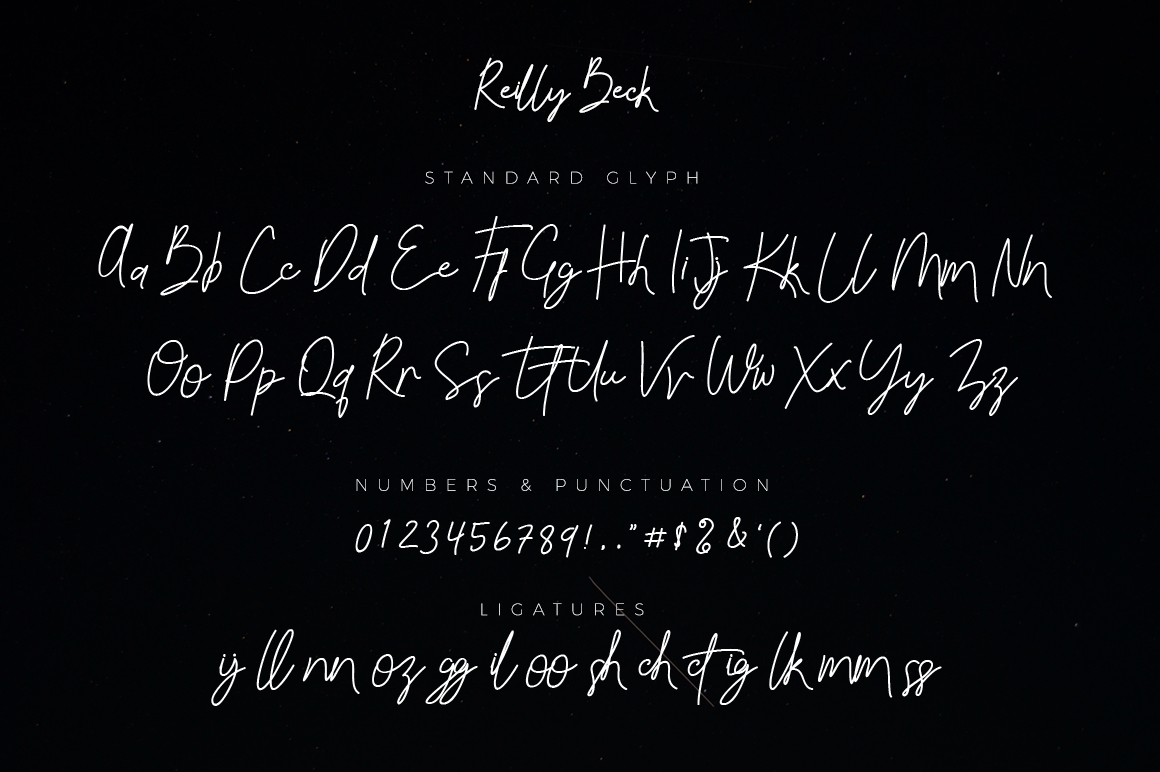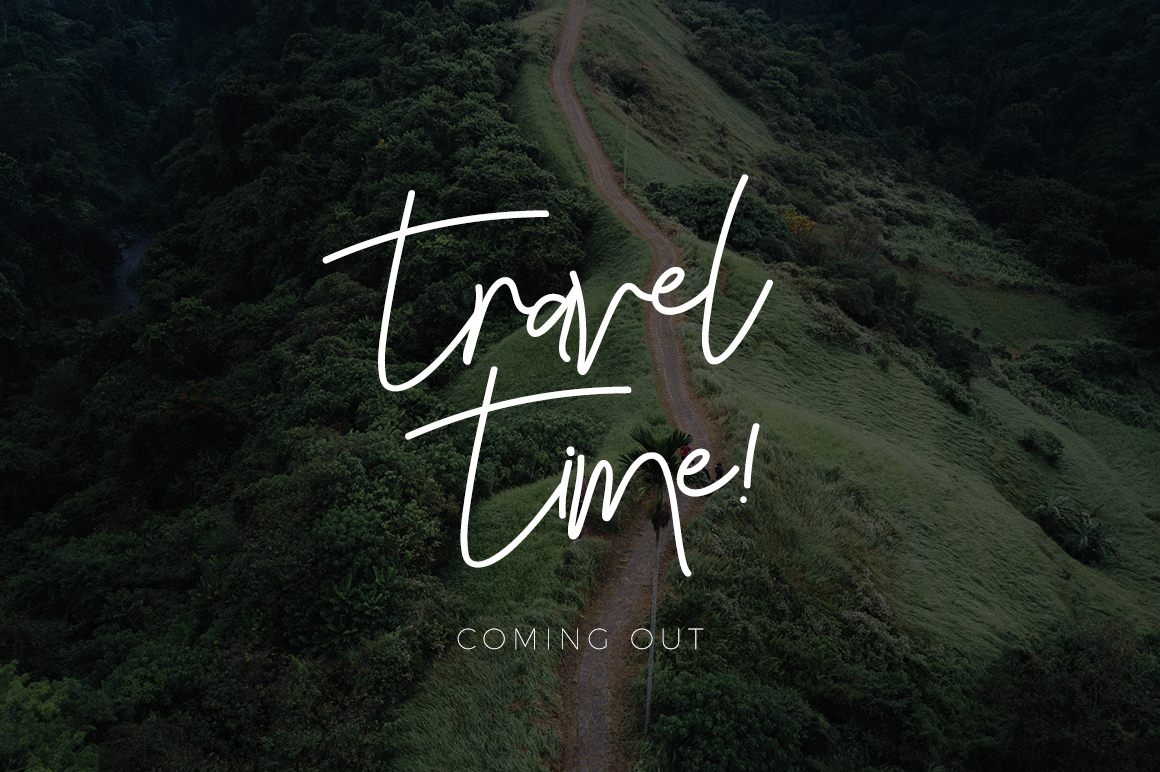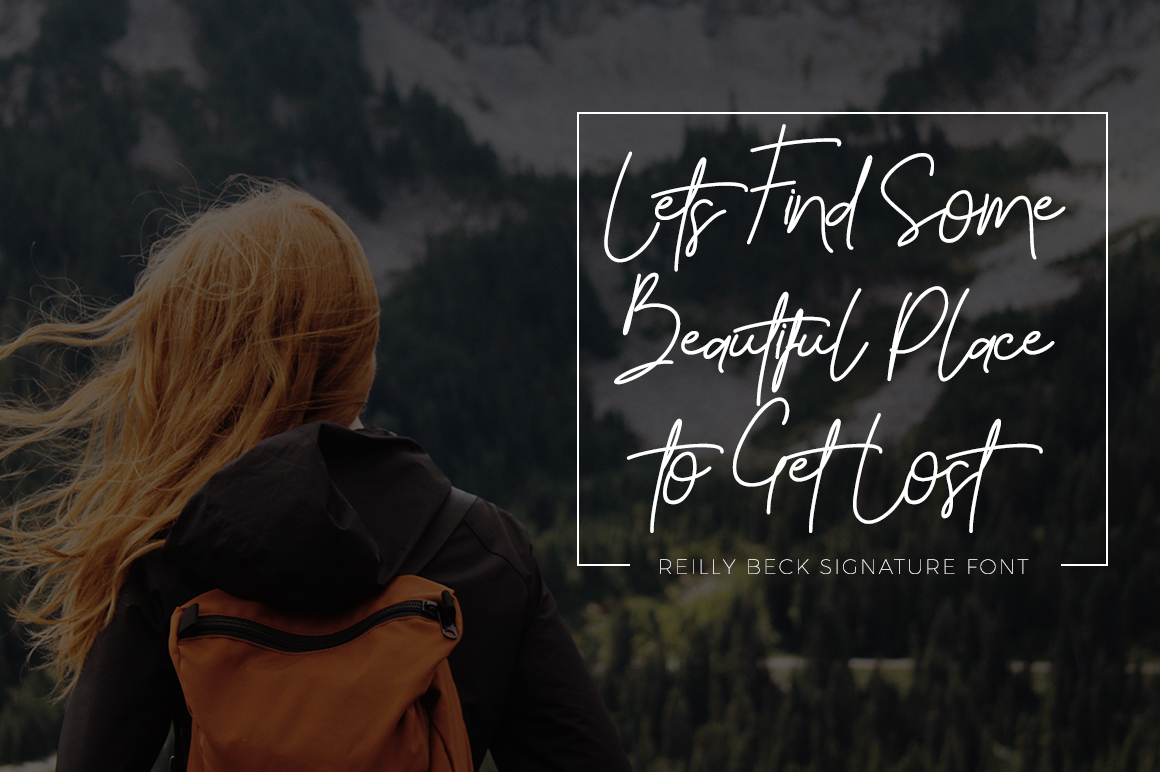
Reilly Beck Free Font
Reilly Beck Free Font is an exclusive freebies font perfectly suited to signature, stationery, logo, typography quotes, magazine or book cover, website header, clothing, branding, packaging design, and more. This free typeface was designed by a talented Kamigawi Etc. If you like it don’t forget to check out the full version.